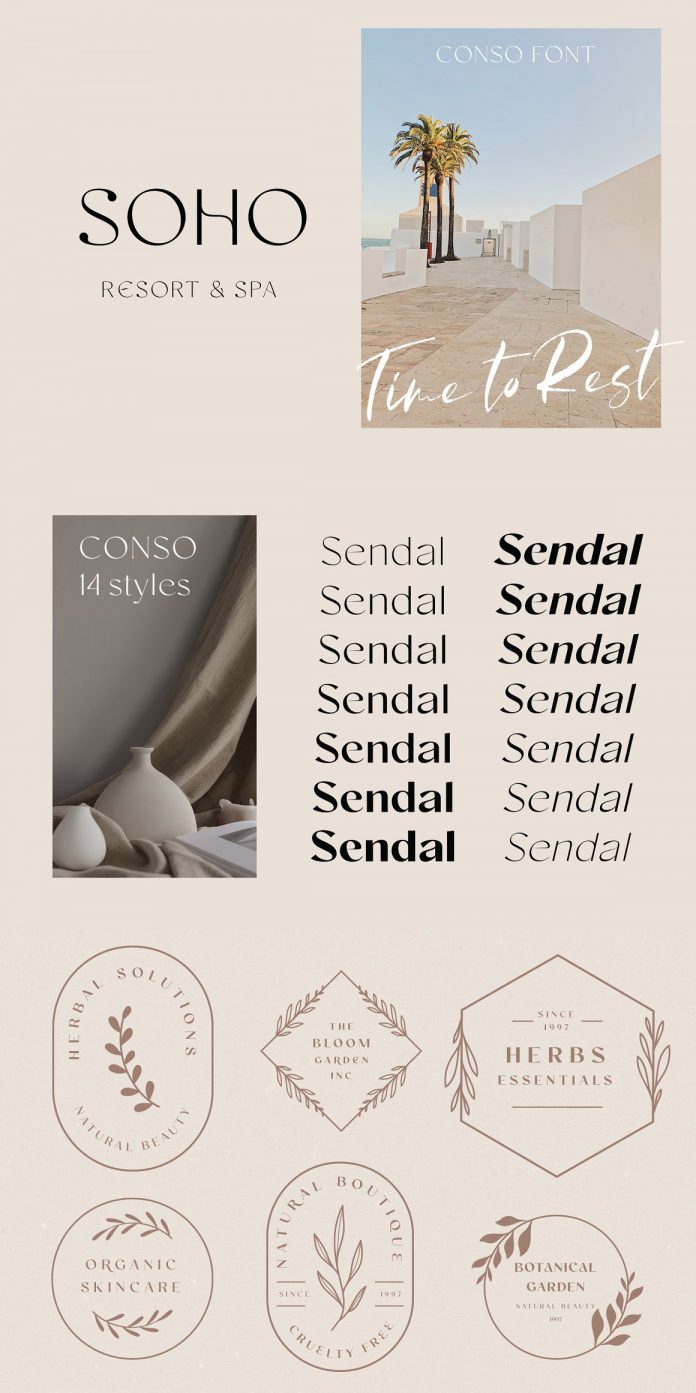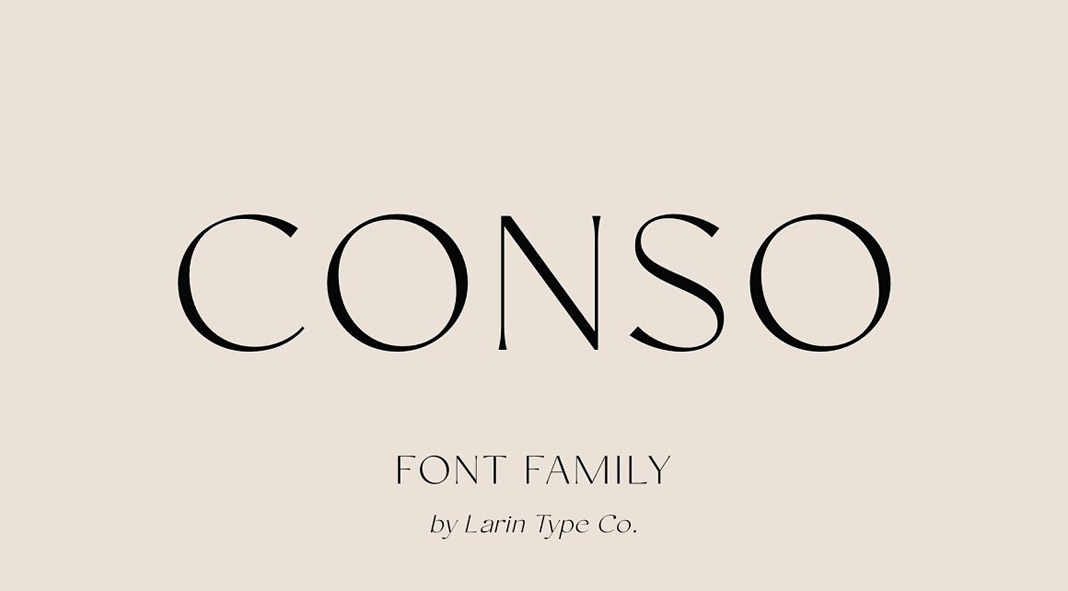
Designed and published by Pasha of Larin Type, the Conso font family combines elegant vintage typography with modern design. The sans-serif family consists of 14 fonts including seven weights plus matching italics. Thanks to great kerning and contrasting design, the Conso font family offers good legibility. You can use it for a wide range of projects such as logo designs, advertising, packaging, book covers, magazines, headings, and much more.
The Conso font family includes several stylistic alternates with a teardrop-shaped tail for uppercase and lowercase letters. Please note that stylistic alternates require professional design software such as Adobe Illustrator, Photoshop, or InDesign. Just click on the following link to learn more about the Conso font family.